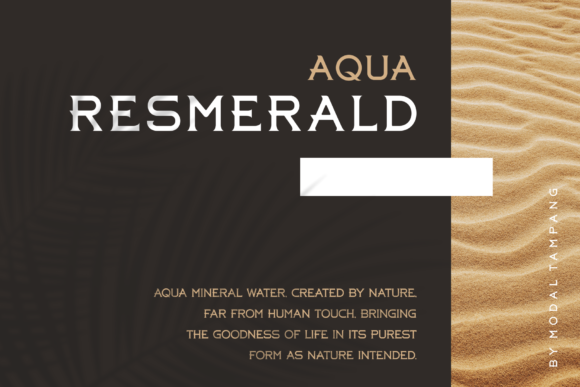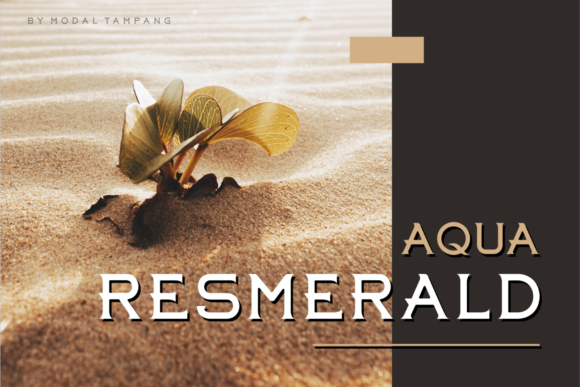
Aqua Resmerald Font: Elevate Your Designs with Elegance and Versatility
Are you on the hunt for a font that exudes sophistication, elegance, and versatility? Look no further than the stunning Aqua Resmerald Font. This beautiful serif font is perfect for designers and crafters who want to add a touch of luxury to their creations. In this article, we’ll dive into the world of Aqua Resmerald, exploring its features, uses, and benefits.
What is Aqua Resmerald Font?
Aqua Resmerald is an elegant and bold serif font that is sure to capture your heart. Its incredibly versatile style makes it perfect for a wide range of design projects, from gorgeous invitations and beautiful stationery art to eye-catching social media posts and more. Whether you’re a seasoned designer or a crafty DIY enthusiast, Aqua Resmerald is sure to become your go-to font.
Key Features of Aqua Resmerald Font
- Elegant and Bold: Aqua Resmerald boasts a striking serif design that commands attention and exudes sophistication.
- Versatile: This font is perfect for a wide range of design projects, from formal invitations to social media graphics.
- Easy to Read: Despite its bold style, Aqua Resmerald remains easy to read, making it perfect for body text and headlines.
- Highly Customizable: With Aqua Resmerald, you can experiment with different colors, sizes, and styles to create unique and eye-catching designs.
Uses of Aqua Resmerald Font
Aqua Resmerald is an incredibly versatile font that can be used in a variety of design projects, including:
- Invitations: Create stunning formal invitations for weddings, galas, and other special events.
- Stationery Art: Add a touch of elegance to your stationery with beautiful artwork and typography.
- Social Media Posts: Make your social media posts stand out with bold and eye-catching graphics.
- Logos and Branding: Use Aqua Resmerald to create a sophisticated and memorable brand identity.
- Packaging Design: Elevate your packaging design with elegant and bold typography.
Benefits of Using Aqua Resmerald Font
So why choose Aqua Resmerald Font for your design projects? Here are just a few benefits:
- Instant Elegance: Aqua Resmerald adds a touch of sophistication and elegance to any design project.
- Versatility: This font can be used in a wide range of design projects, from formal to informal.
- High-Quality: This font is designed with high-quality and precision, ensuring crisp and clear text.
Tips and Tricks for Using Aqua Resmerald Font
To get the most out of Aqua Resmerald, here are a few tips and tricks:
- Experiment with Colors: Try pairing Aqua Resmerald with different colors to create unique and eye-catching designs.
- Play with Sizes: Experiment with different font sizes to create visual interest and hierarchy.
- Mix and Match: Combine Aqua Resmerald with other fonts to create a unique and stylish typography.
In conclusion, Aqua Resmerald Font is a stunning serif font that is perfect for designers and crafters who want to add a touch of elegance and sophistication to their creations. With its incredibly versatile style, ease of use, and high-quality design, Aqua Resmerald is sure to become your go-to font for a wide range of design projects. So why wait? Fall in love with Aqua Resmerald and elevate your designs to the next level!